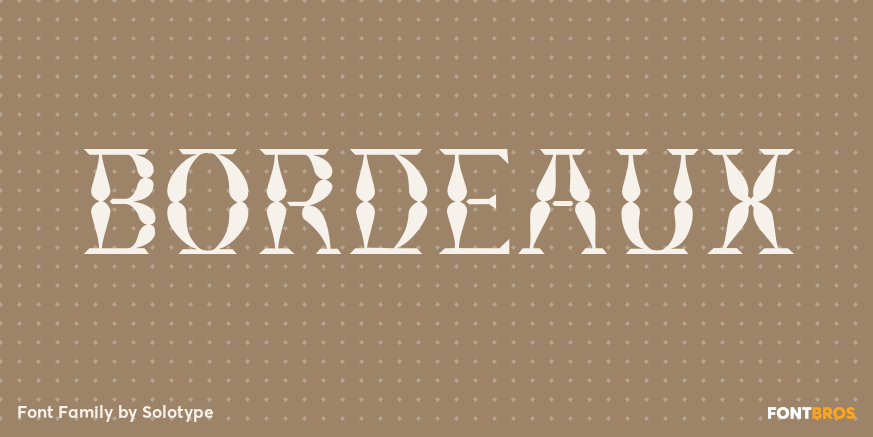
HomeFont BrosHistoricalBordeaux HistoricalSpecial Effect Bordeaux FacebookXPinterestWhatsApp 1 of 1 About Bordeaux This font was inspired by the lettering on a shop sign along a very classy shopping street in Bordeaux, France. There were similar styles among mid-nineteenth century types.  DOWNLOAD ON FONT BROSThis font is sold and delivered by Font Bros. Font Canyon may earn a commission if you buy through this link. People also explored Griselda Font Iheart Font Marmalede Font Sweetmilk Font Brownis Cake Font Mango Salsa with Bouncy Handwritten Script Font Style Foxlove Font Logo Mock-up Pack Flowering Font 312 0 TagsBordeaux Font Previous articleCrossfit CoreNext articleAugustine LEAVE A REPLY Cancel reply Comment: Please enter your comment! Name:* Please enter your name here Email:* You have entered an incorrect email address! Please enter your email address here Website: Save my name, email, and website in this browser for the next time I comment. Personal Use Free Good Timing – Bold Personal Use Free Read more about this font Glosery Personal Use Free Read more about this font Solaria Personal Use Free Read more about this font Squariess Personal Use Free Read more about this font BLOG Free vs Paid Fonts: Why Investing in Premium Fonts Is Worth It Free vs Paid Fonts: Why Premium Fonts Are Worth It in 2025 The debate of free vs paid fonts continues in the design world. While... Free Fonts Risk: Why Free Fonts Can Be Dangerous for Designers Best Fonts for T-Shirt Design – Top 2025 Picks Fonts That Capture the Spirit of New York City